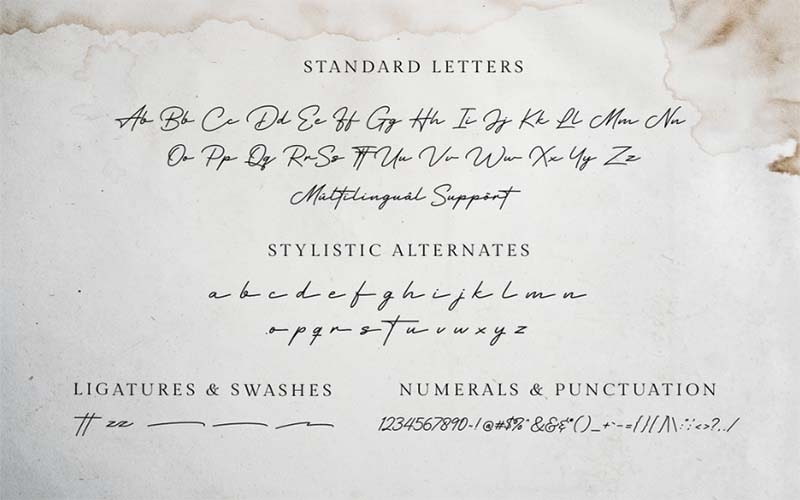
Hertine Font is a modern and beautiful handwritten typeface. If you are looking for a perfect handwritten text font, Hertine is a good choice for you. It was made by Ef Studio Luthfi Fauzi Purwakarta INA.
This casual script font can be found in only one weight. It also includes regular styling with an upper, and lower case scheme, including punctuation, numbers, and some special markings to give your design a stunning texture.
This is a signature-style font that is perfect for stationery, invitations, wedding design, watermarks, product packaging, social media posters, labels, product design, special events, photography, and much more.
Featuring its great textile styling, preview the font lettering images we’ve added. In addition to having a very stylish structure, it also has a high level of capability according to properly prepared letters.
Hertine Font
Deeply featured, the amazing show also supports a variety of languages, from basic Latin to extended. From a uniform baseline, its pen design attracts many designers to follow it.
You can do this right now and create great imitation designs for your audience or clients. Using this damn font family for headlines or style apps on your fashion blog website would also be a smart choice.